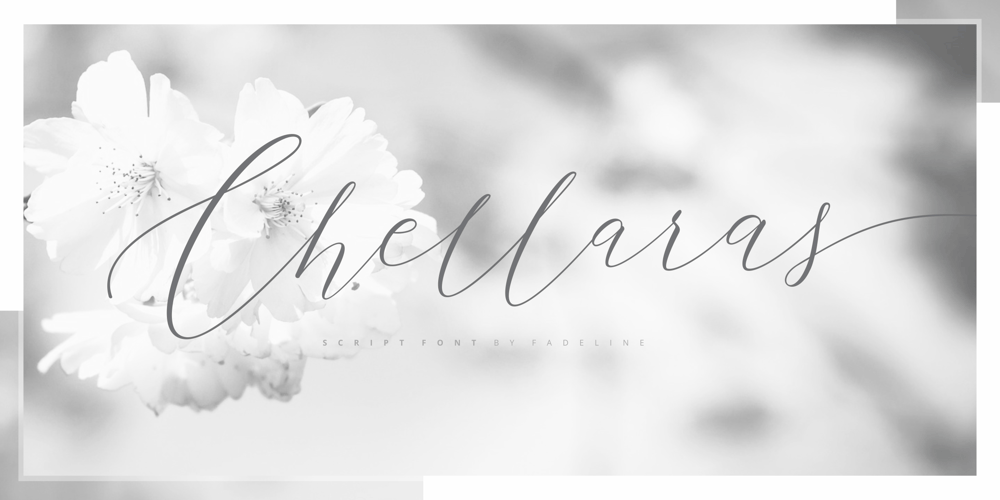
Chellaras Script Font Family was designed by Juni Fadil Putra and published by FadeLine Studio. Chellaras Script contains 1 styles and family package options. Introduce Chellaras Script!This time is different, This font comes with a thin and italic style. Giving rise to an elegant, sweet and simple style. Made very slowly to make it look beautiful. Available 544 glyphs in it! Believe me, this font can increase your creativity in making certain designs!